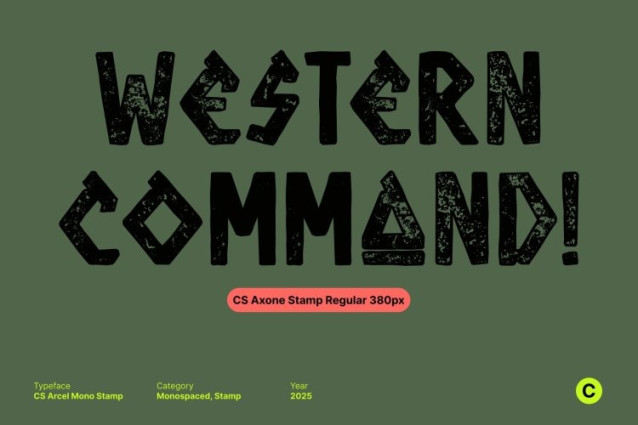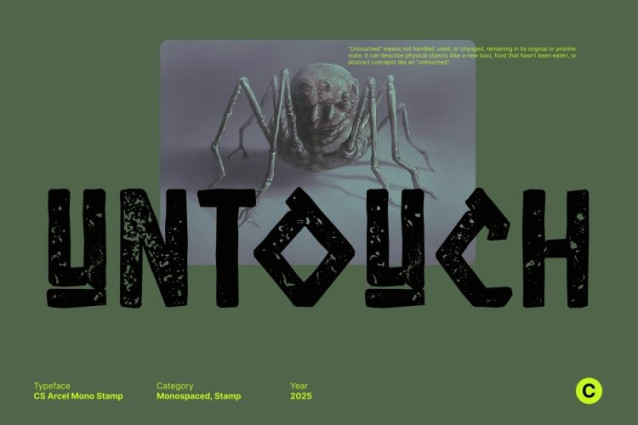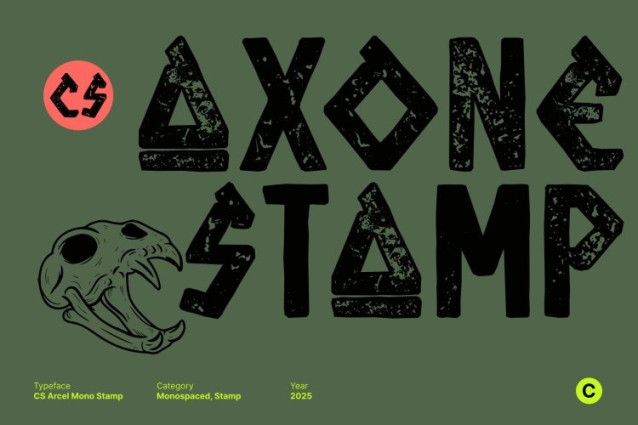
CS Axone Stamp Font
CS Axone Stamp Font This is a display font inspired by the elegance and grandeur of ancient Greek letterforms. Rooted in classical inscriptions and historical typography, it captures the spirit of antiquity while remaining adaptable to contemporary design. Its distinctive shapes evoke carved stone lettering and ceremonial scripts, bringing timeless cultural depth to modern visuals.
Classic Proportions with Intricate Historical Detail
Each letterform is carefully constructed with balanced proportions and refined details that echo traditional Greek inscriptions. The structured geometry and thoughtful spacing reflect the artistry of ancient craftsmanship, creating a harmonious and dignified typographic presence that feels both scholarly and artistic.
Dramatic Contrast with a Vintage, Stamped Texture
This font features pronounced contrast between thick and thin strokes, reminiscent of chiseled stone and classical calligraphy. The stamped effect introduces a rough, uneven texture that enhances its aged appearance, adding authenticity, depth, and a tactile, timeworn quality. This texture reinforces the font’s vintage character, making it feel historical, expressive, and full of soul.
Timeless Character with Expressive Depth
The combination of classical structure and organic stamp texture results in a font that feels powerful yet human. Its imperfect surface adds visual interest without compromising clarity, allowing the typeface to communicate history, tradition, and cultural richness with confidence.